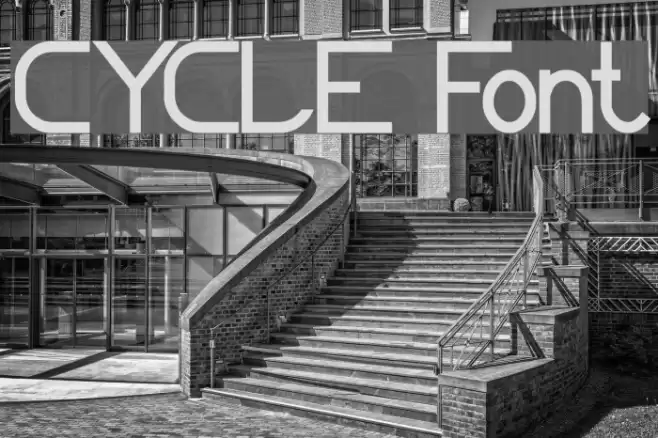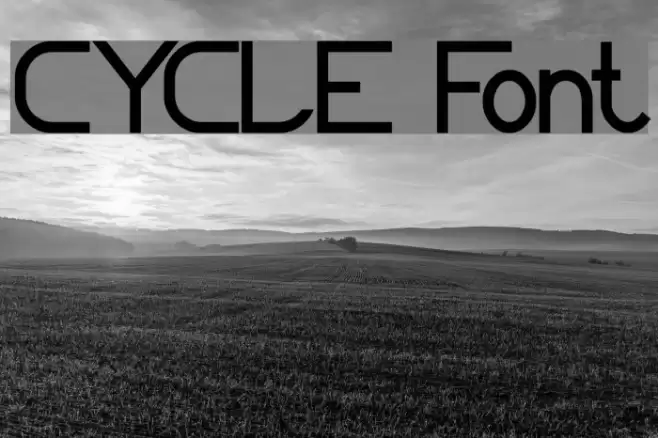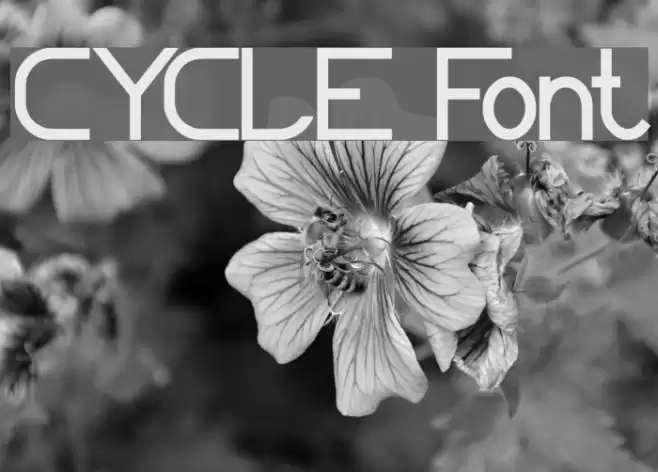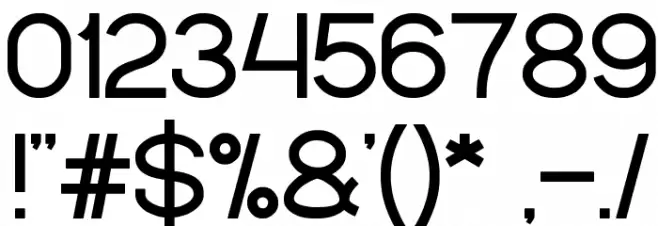
CYCLE Font
CYCLE Description
This font features a modern and clean design with geometric influences, characterized by its uniform stroke width and minimalistic appearance. The uppercase letters are bold and slightly condensed, providing a strong visual impact. The lowercase letters maintain a consistent style, with rounded edges that add a touch of softness to the overall look. The numerals are clear and legible, making them suitable for various applications. Special characters are designed with the same attention to detail, ensuring coherence across all glyphs. This font is versatile, offering a contemporary feel that can enhance both digital and print media.
A modern, geometric font with uniform strokes and a clean, minimalistic design from Uncategorized fonts.